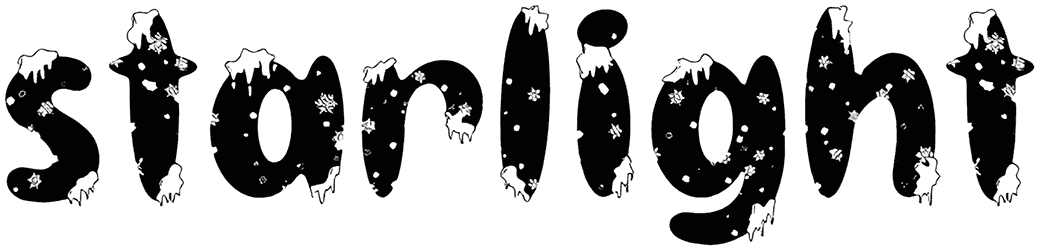
Starlight Font
The Starlight font is a holiday, Christmas font that is perfect for adding a festive touch to your Christmas designs. This font features a charming and snowy style that is sure to grab the attention of anyone who sees it.
The absence of uppercase letters is the only throwback element of this holiday font. This snow font has a playful and informal look that is perfect for creating invitations, cards, posters, and other holiday-related designs.